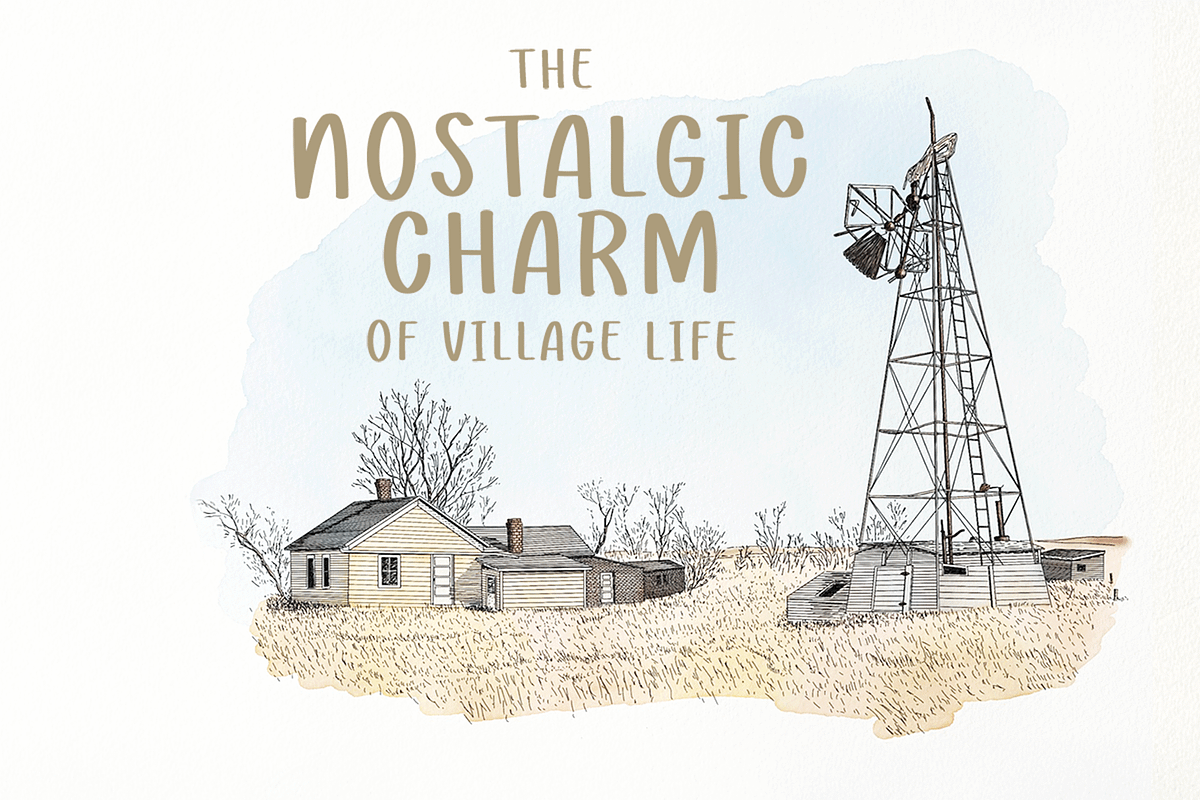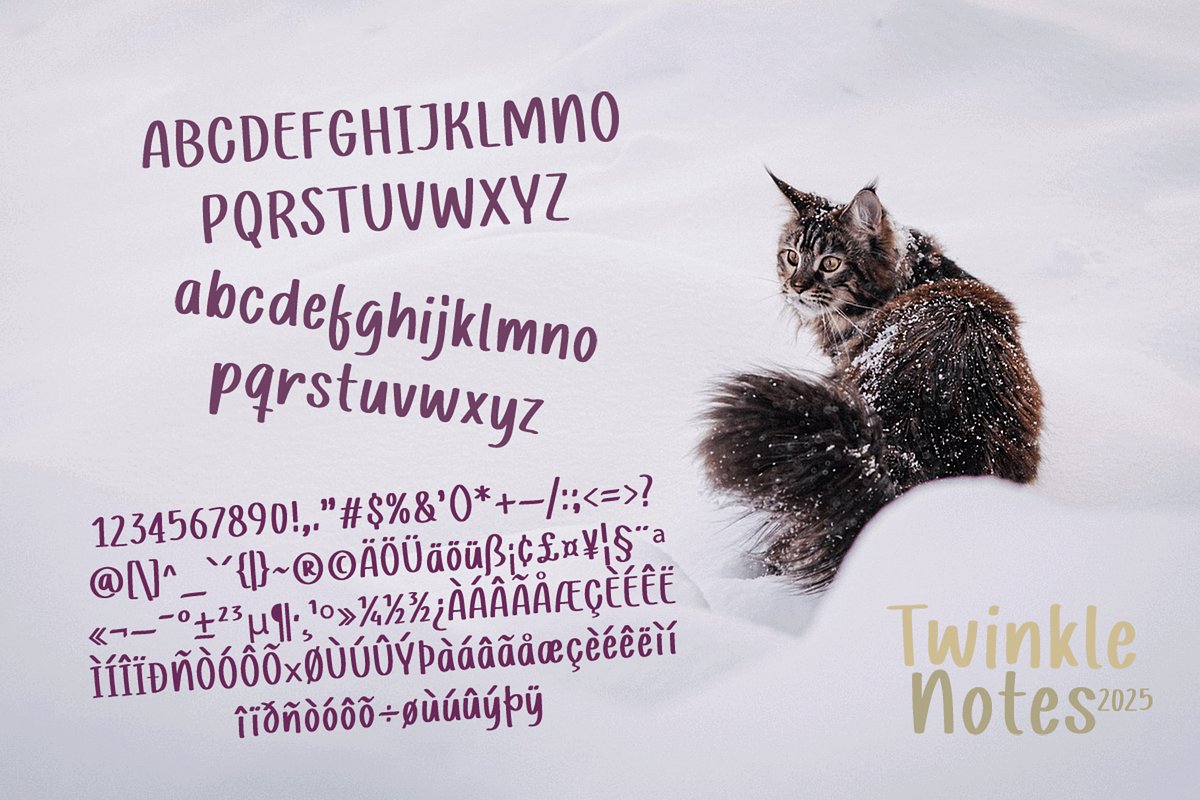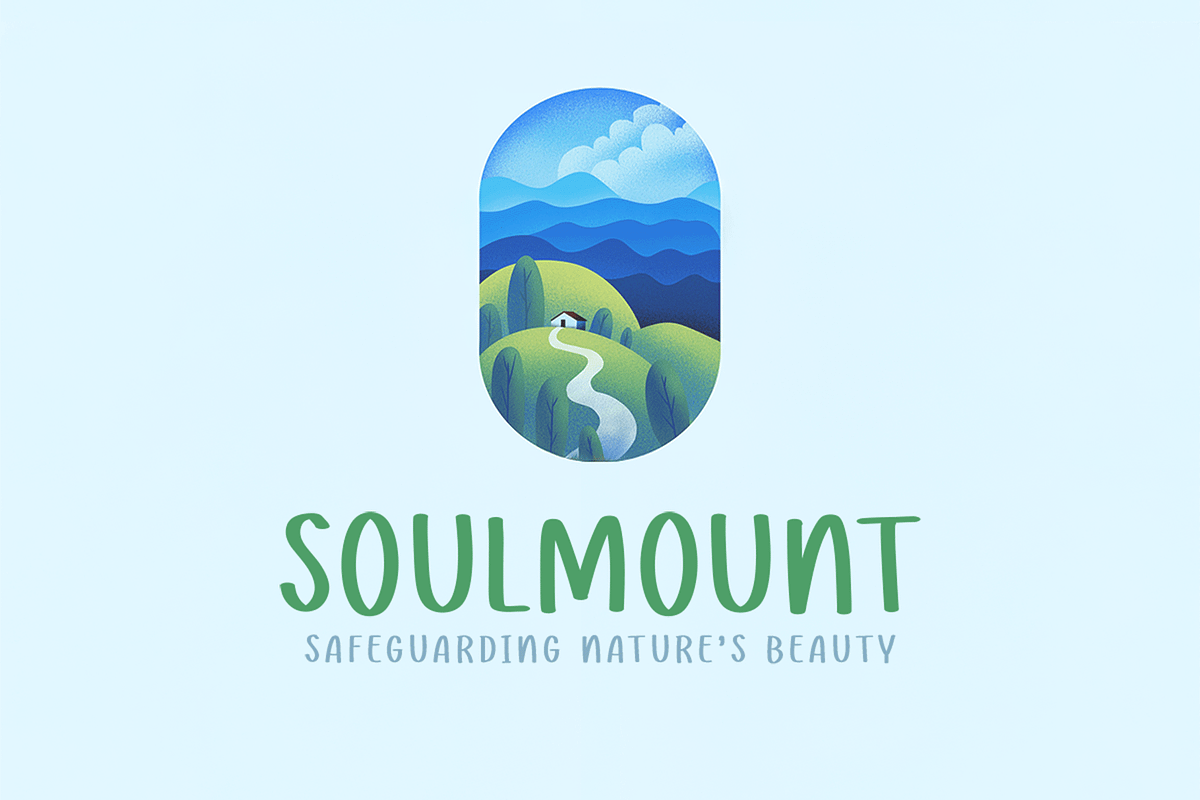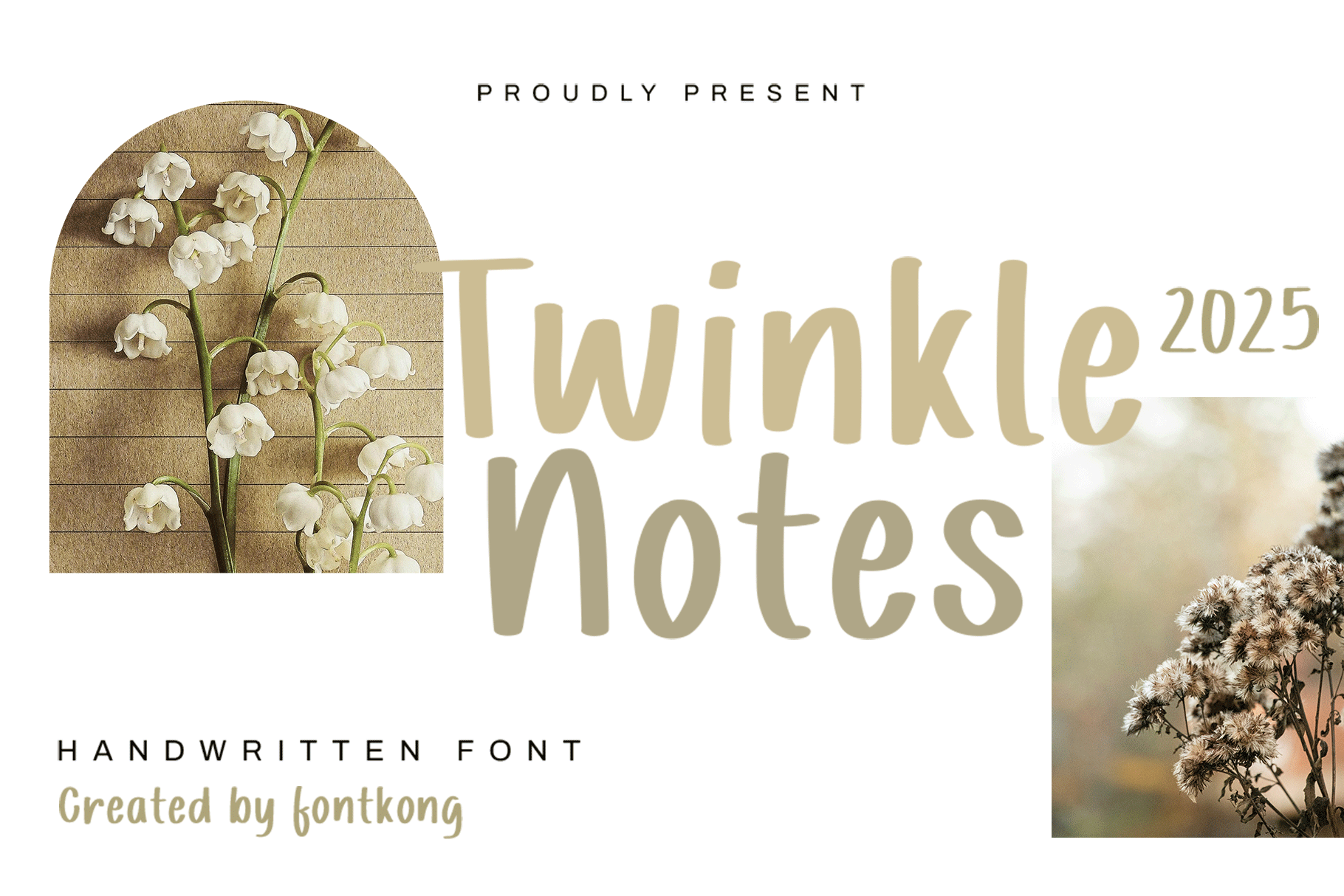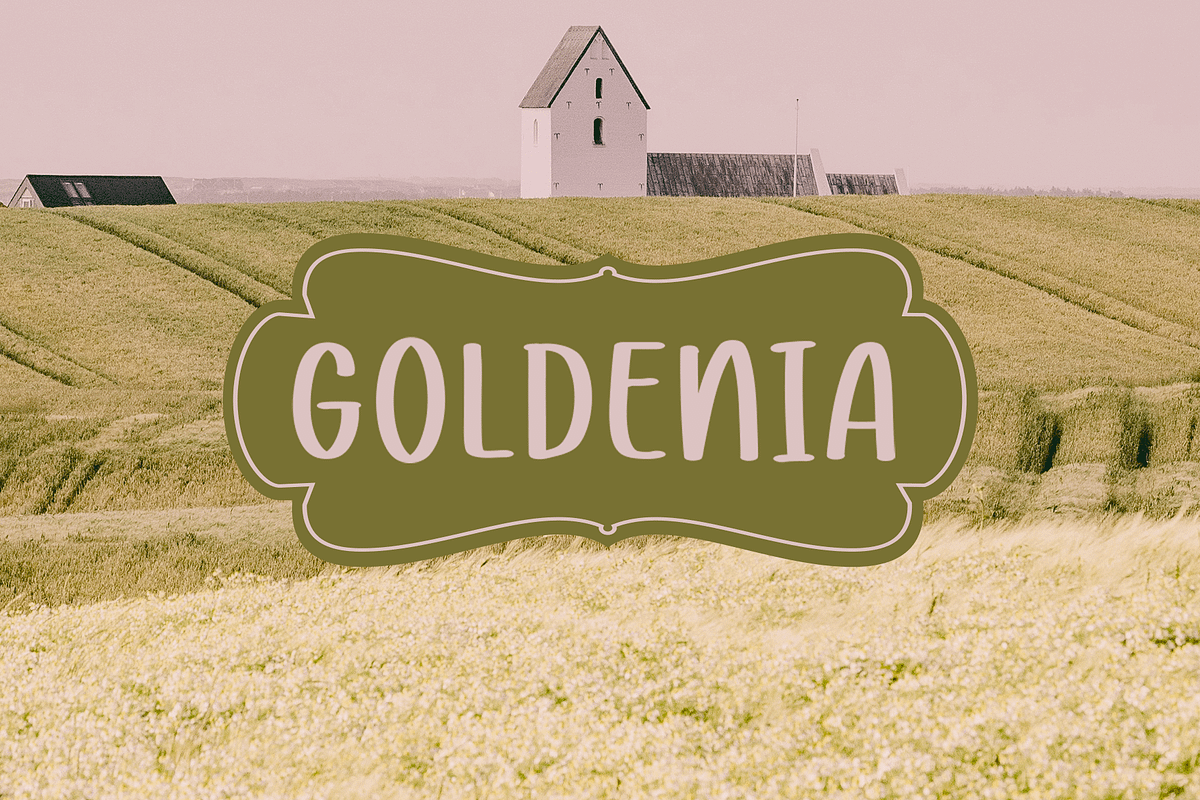
Twinkle Notes – Handwritten Font
Introducing Twinkle Notes, a charming handwritten font that captures the magic of personal touch and playful creativity. Designed with a soft, flowing style, Twinkle Notes brings warmth and friendliness to your designs, making it perfect for invitations, greeting cards, branding, social media posts, and more.
Each character dances with a slight whimsical flair, creating an approachable and heartfelt vibe. With full uppercase, lowercase, numerals, punctuation, and multilingual support, Twinkle Notes is ready to brighten any project you create.
Let your words twinkle and shine with this delightful handwritten font!